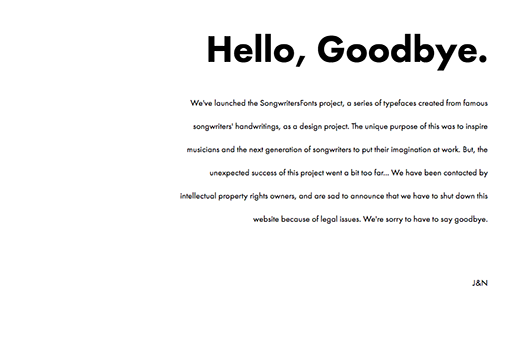
Songwriters Fonts instructed to shut down due to intellectual property legal issues
Following our story on typography platform Songwriters Fonts, which launched earlier this week, founders graphic designer Nicolas Damiens and copywriter Julien Sans have been instructed to close the project down.
The platform is a free font library which digitises the handwriting of iconic songwriters such as John Lennon, Kurt Cobain, Serge Gainsbourg, Leonard Cohen and David Bowie to be downloaded for personal use, but the “unexpected success” of the platform has led to legal issues.
In a statement Julien and Nicolas said: “We’ve launched the Songwriters Fonts project, a series of typefaces created from famous songwriters’ handwritings, as a design project. The unique purpose of this was to inspire musicians and the next generation of songwriters to put their imagination at work.”
After many articles about the project this week cropped up in all corners of the web, the pair explain they have “been contacted by intellectual property rights owners, and are sad to announce that we have shut down this website because of legal issues. We’re sorry to have to say goodbye.”